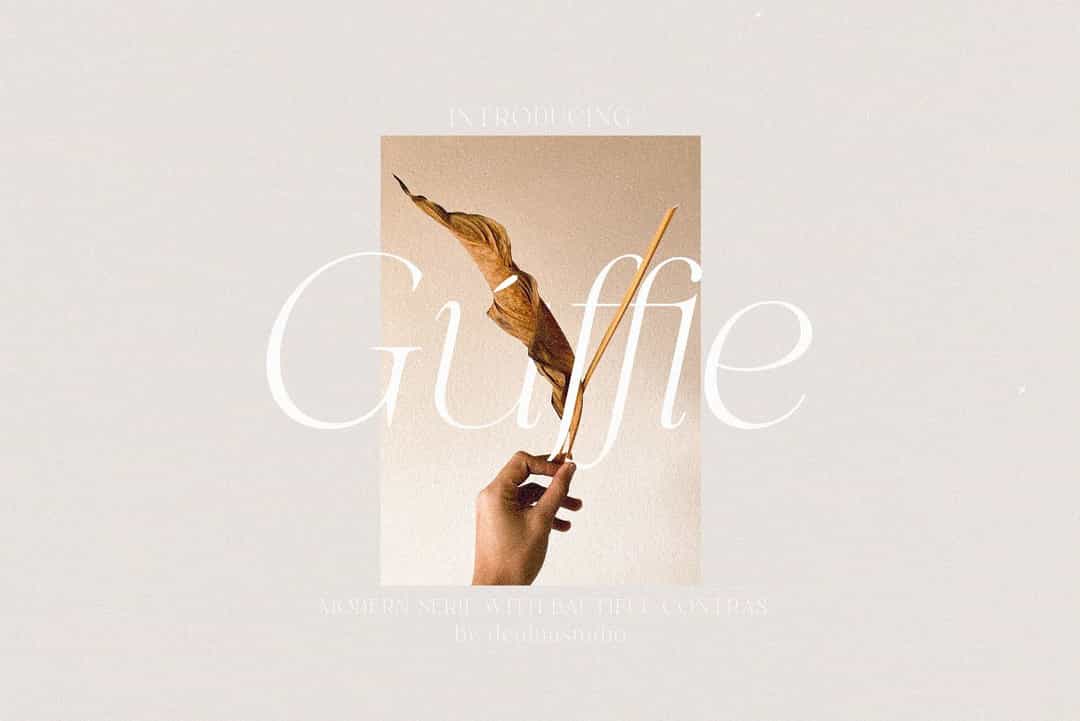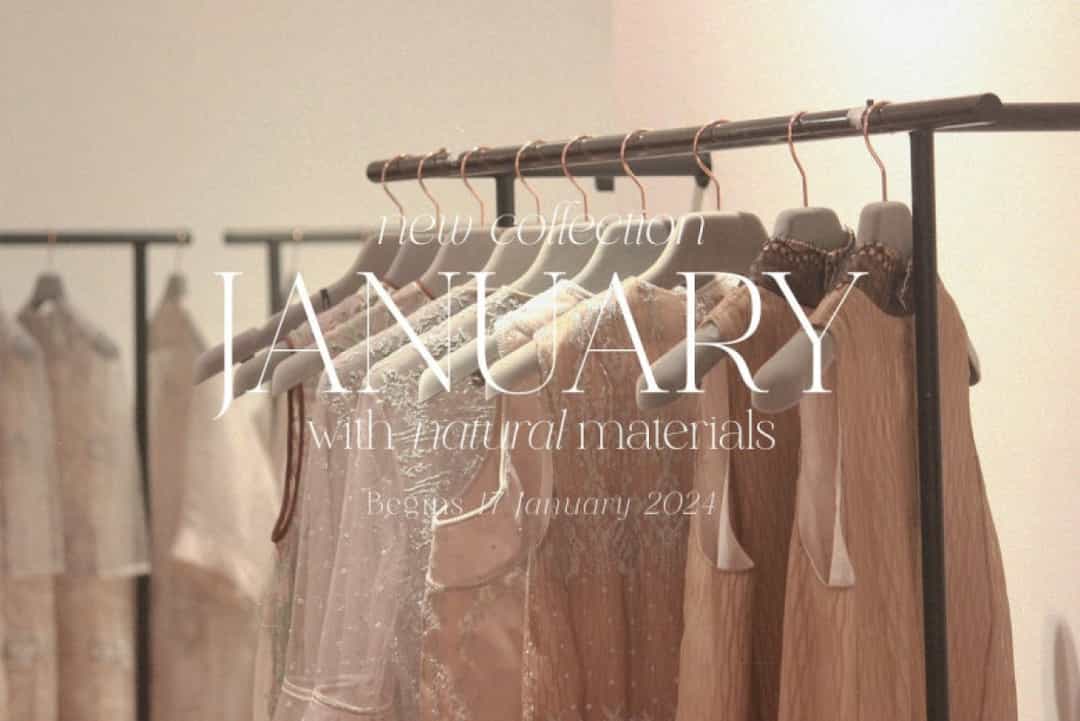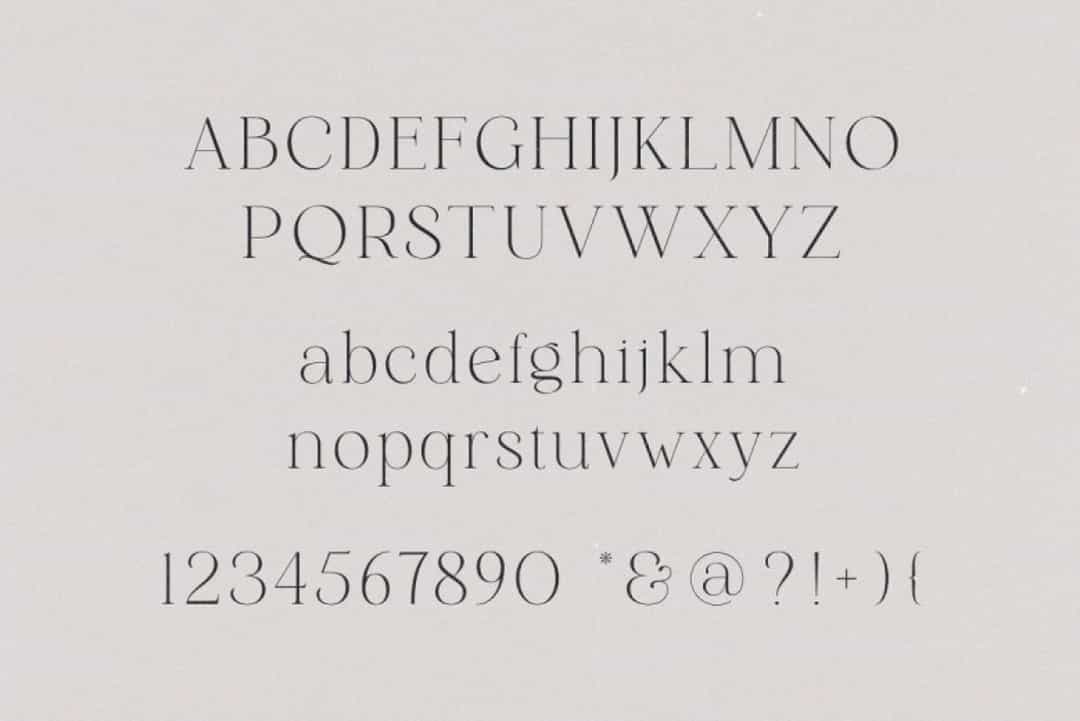
Guffie is an elegant and chic display featuring a contemporary serif typeface with stunning contrast. Perfect for fashion-related projects such as magazine covers, logos and titles; Guffie embodies style with sophistication.